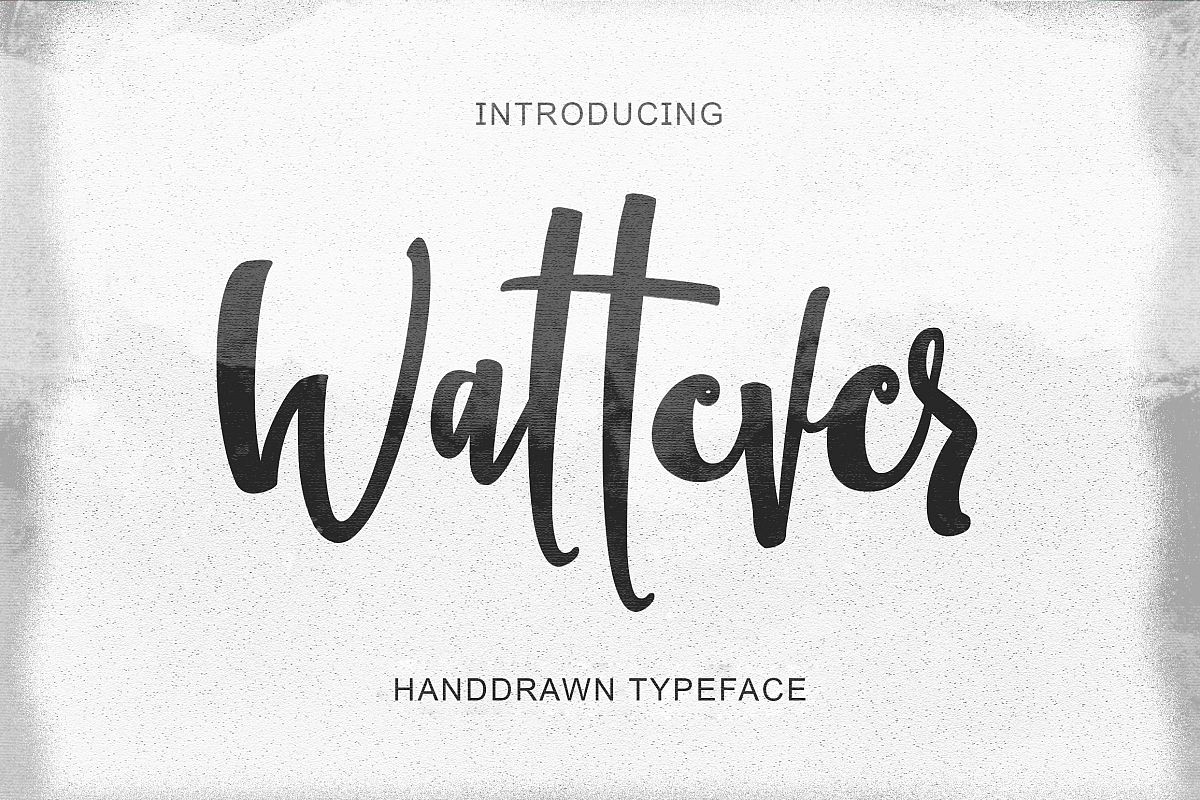
Wattever | Handdrawn Typeface
Wattever-Regular
Wattever typeface is a handwritten font based on original handwritten expressions, allowing you to transform types into interesting and beautiful works. An irregular and lettered look adds a real human touch to things and is accompanied by many loving details. Combine all font styles the way you want, add some decorative or banners and even a single word becomes extraordinary.
Wattever has many alternatives that give you the possibility to make your text almost handwritten with all the imperfections and captivating variations that the original handwriting has.
Wattever will work perfectly for fashion, logos, quotes, posters, brand e-commerce, trend blogs, wedding boutiques or any business that wants to look luxurious and etc